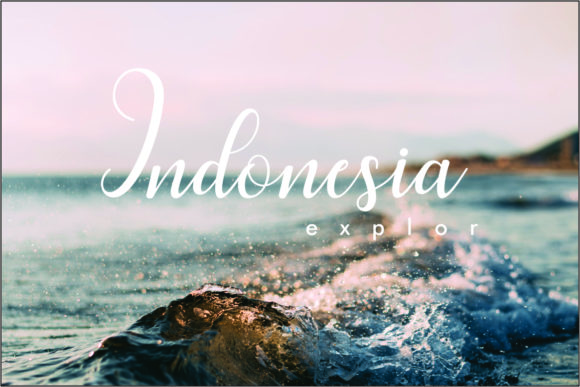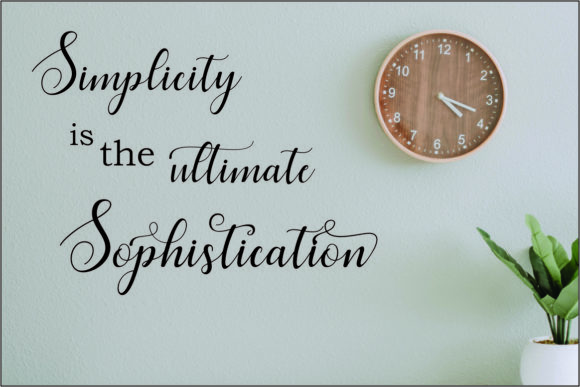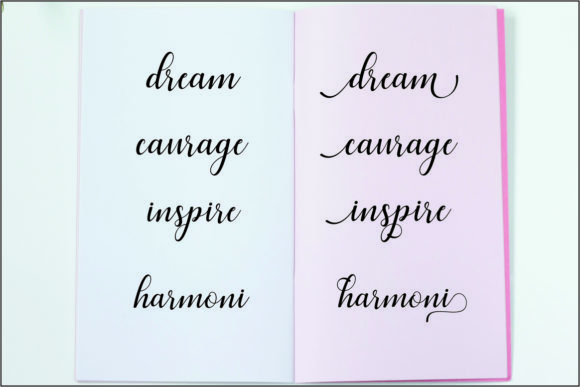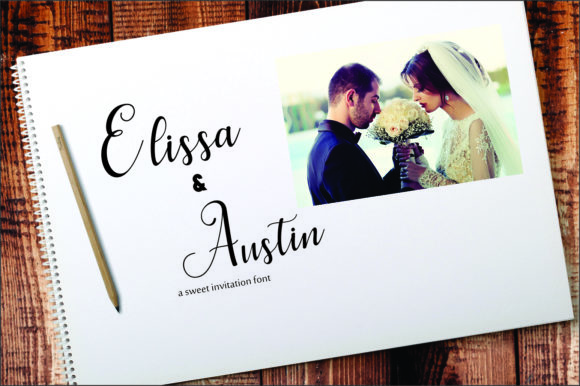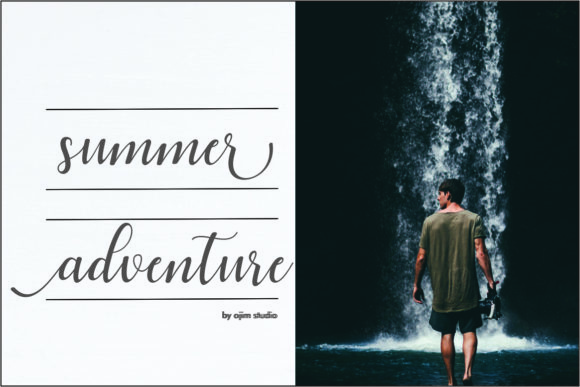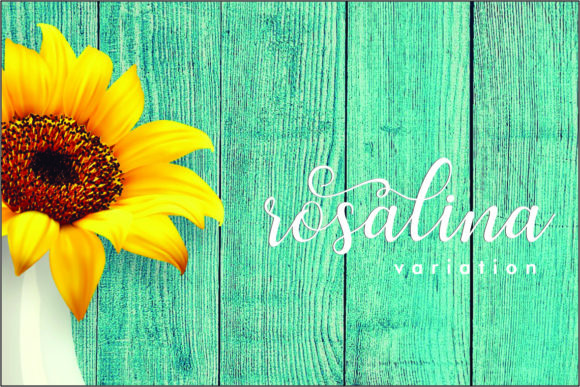
Introduction to Home Dream Script Font
The Home Dream is a modern script font.
It includes elegant swashes which will add a luxurious feel to your designs Every letter has been carefully crafted to make your text look beautiful with an elongated connection model.
Key Features of Home Dream Script Font